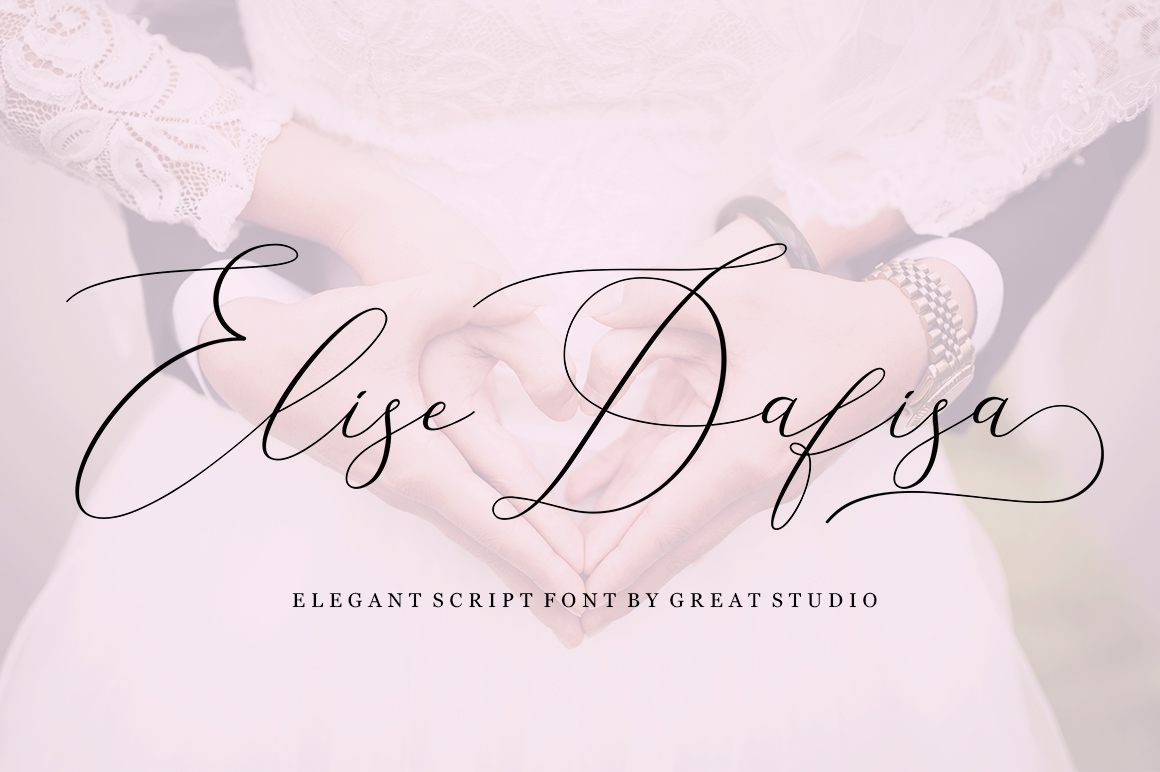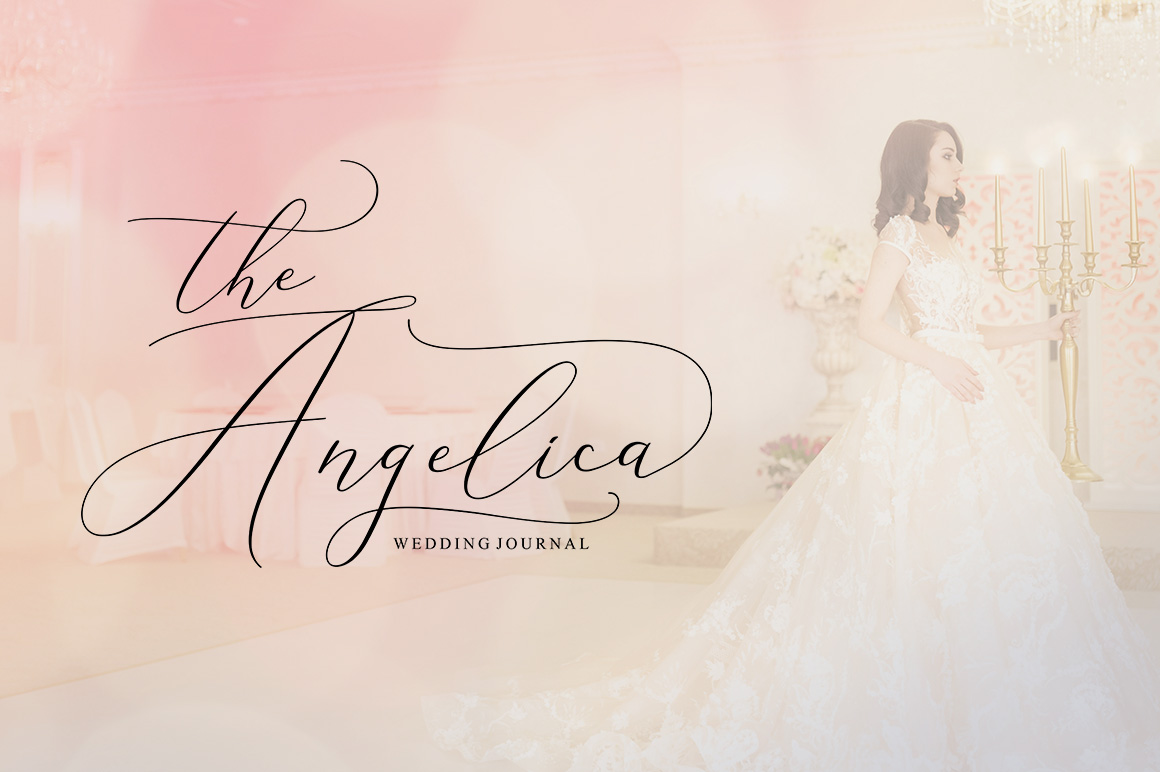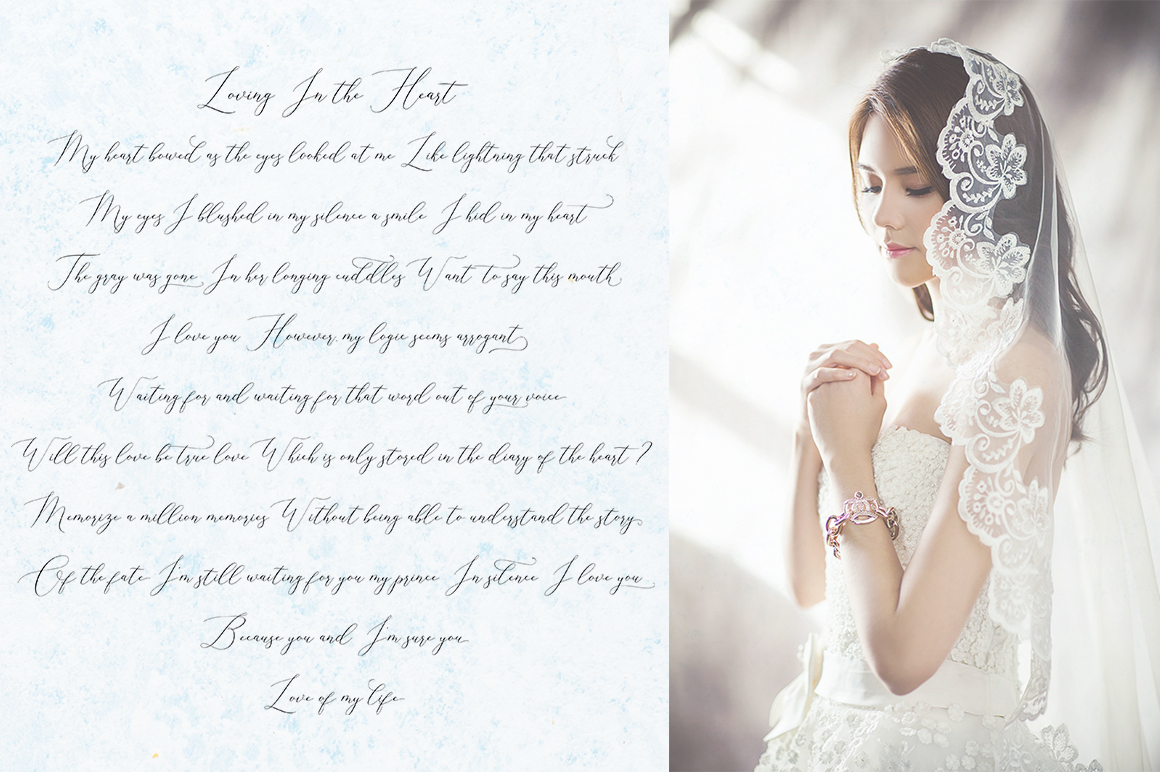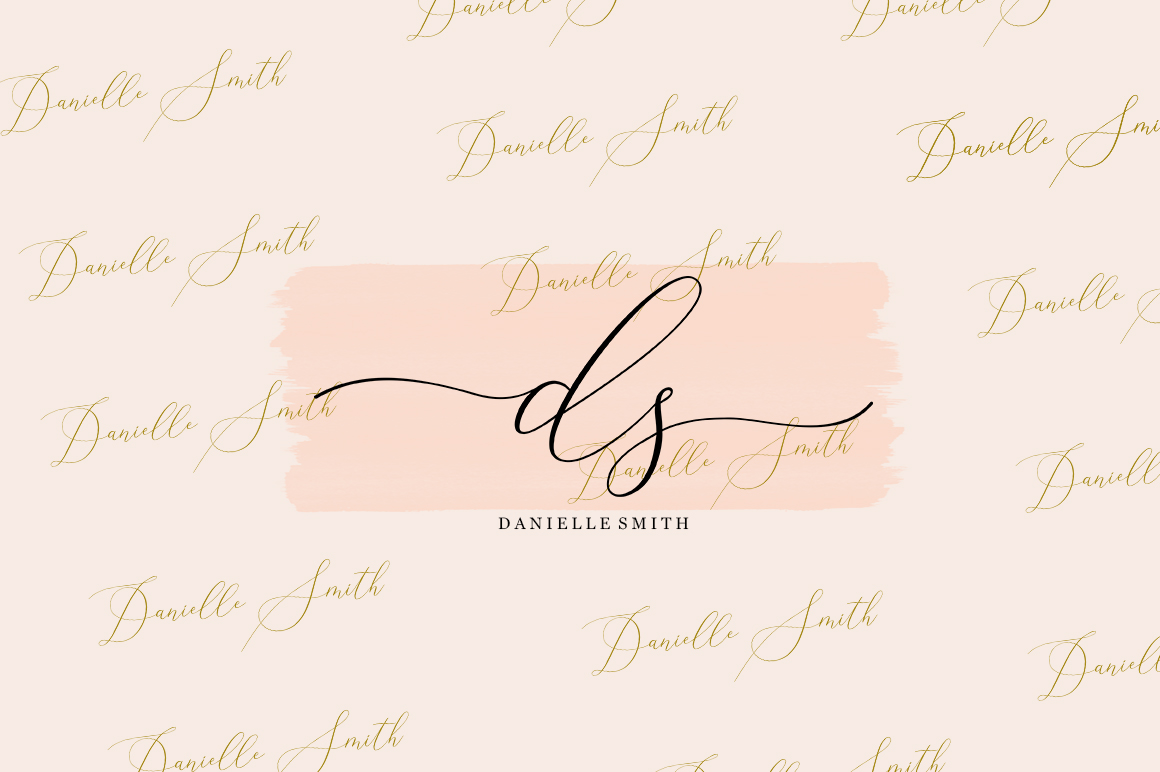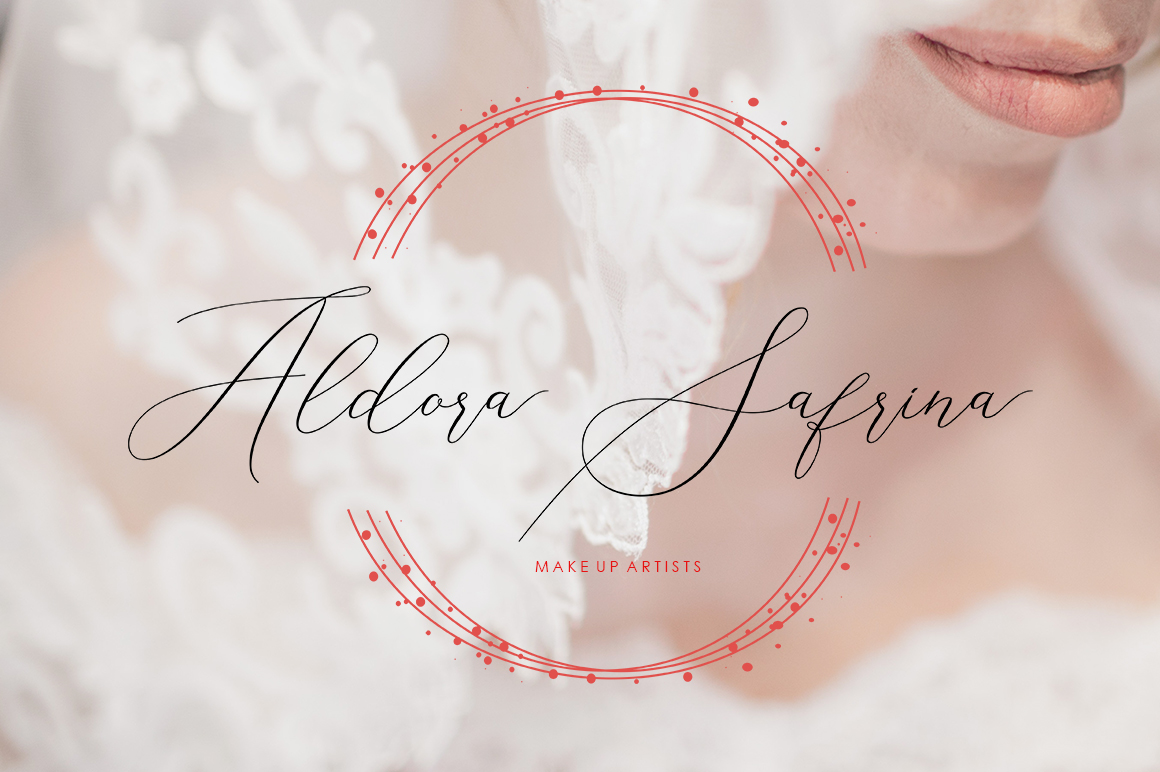
About Elise Dafisa Script Font
Elise Dafisa is a modern calligraphy font with classic, sophisticated accents that can give your special event projects a romantic and classic touch. This thin script is ideal for a wide range of uses in both print and digital projects.